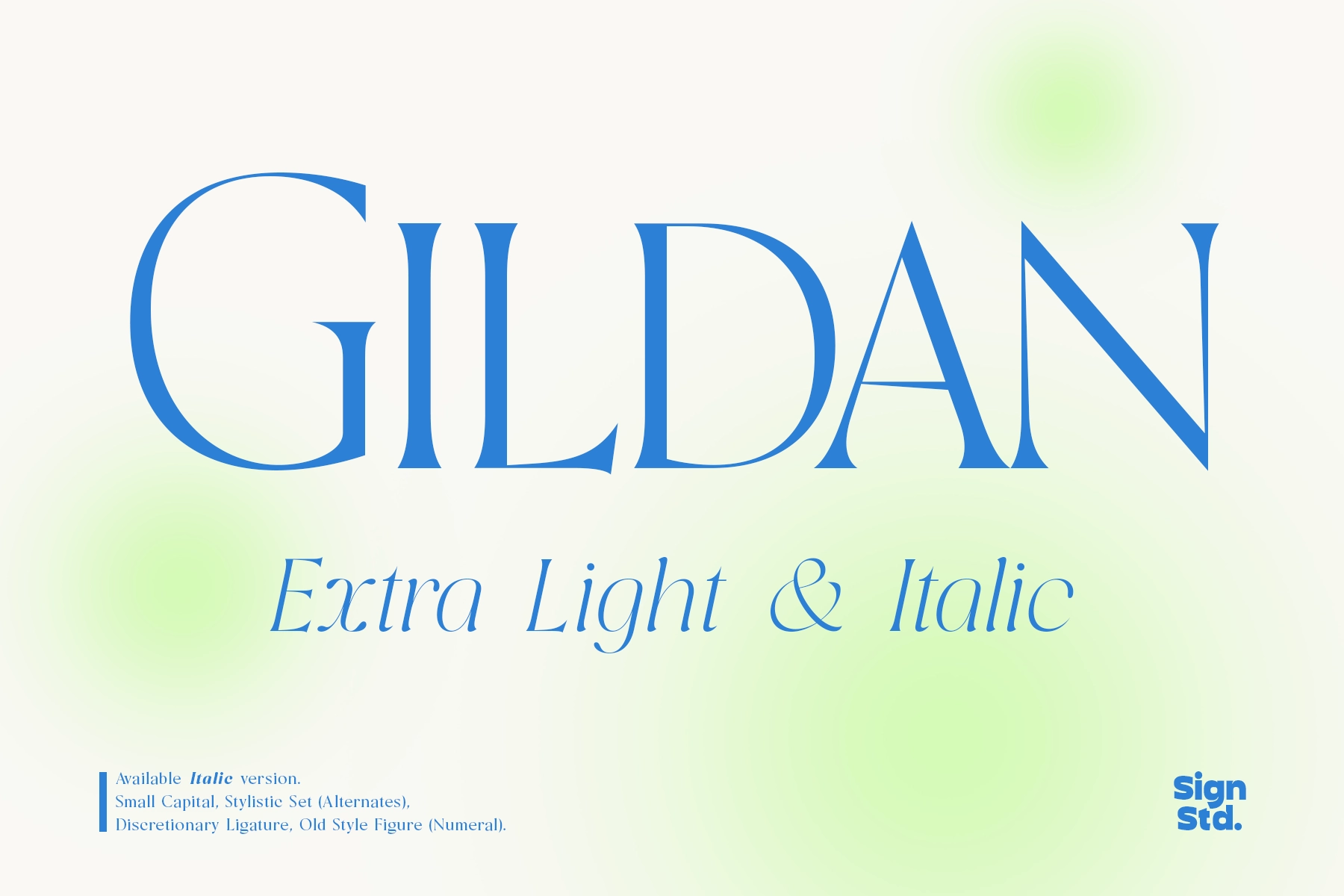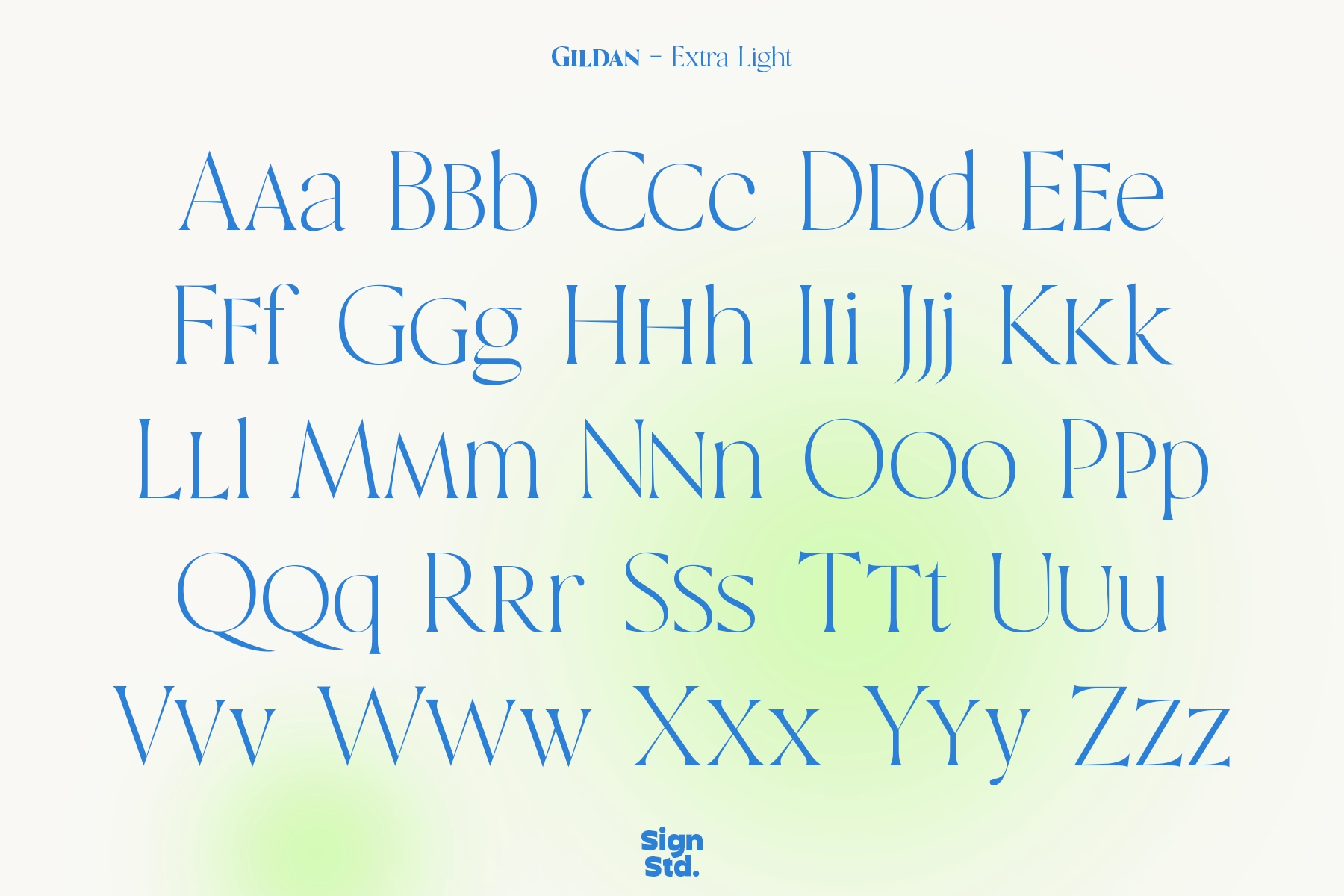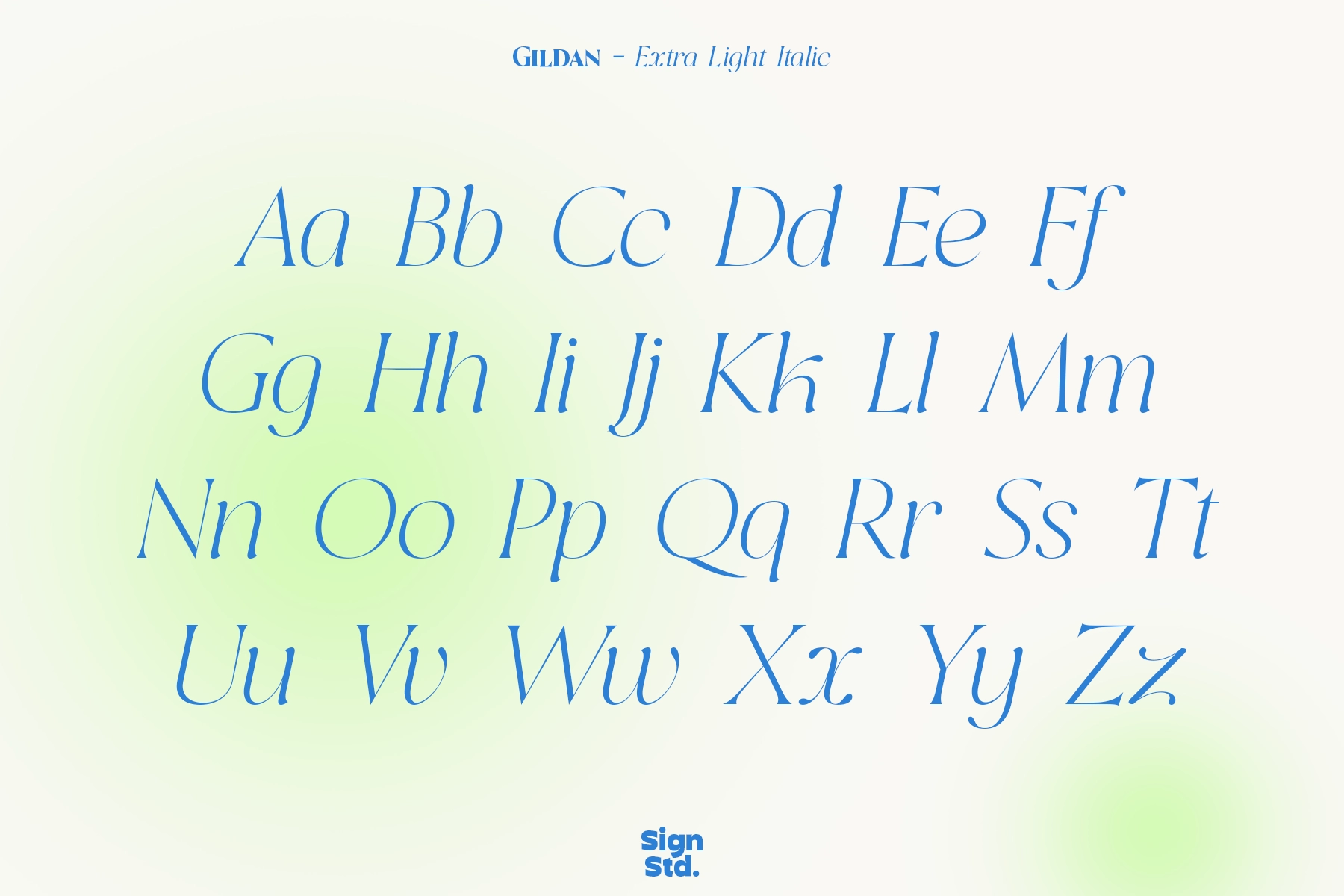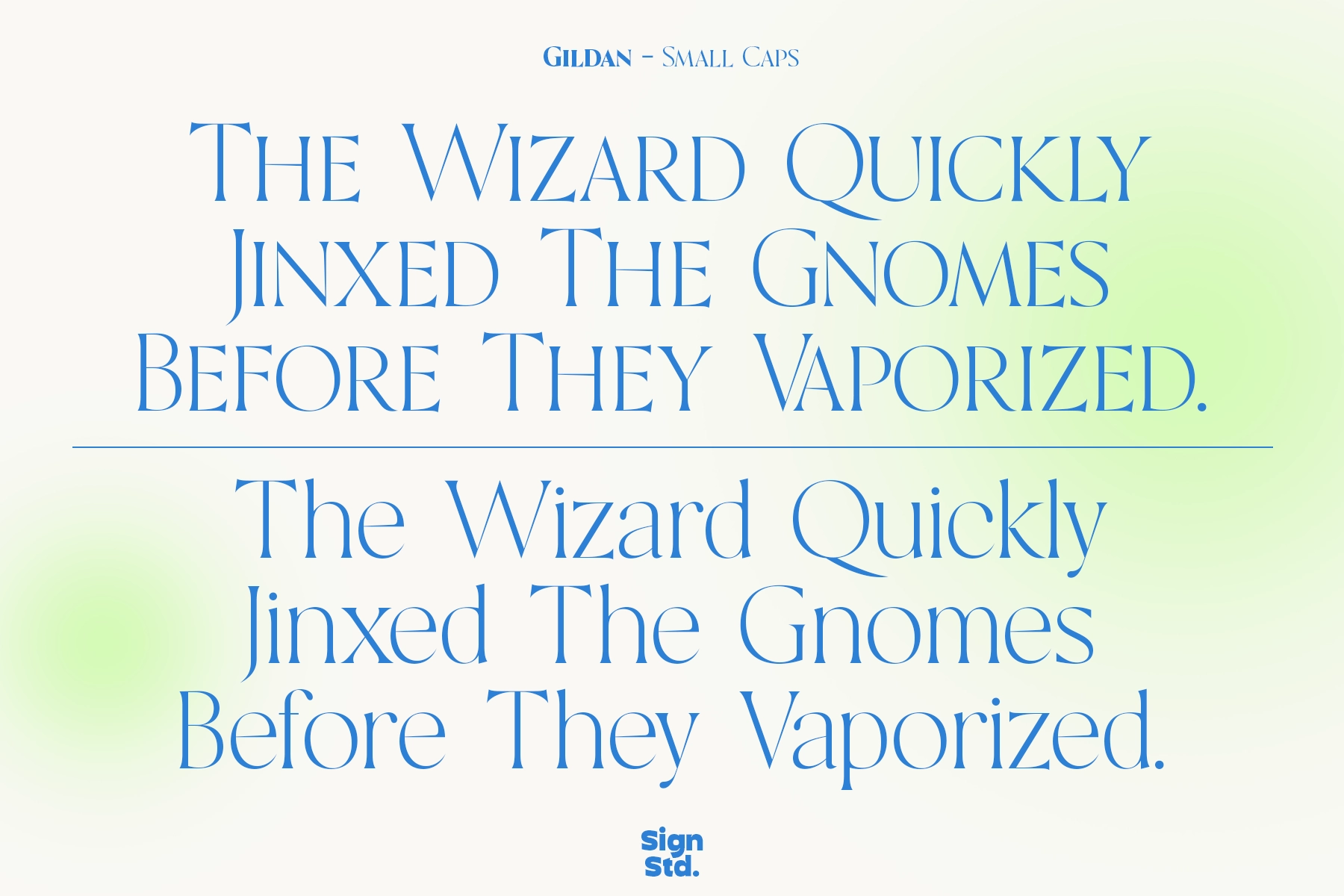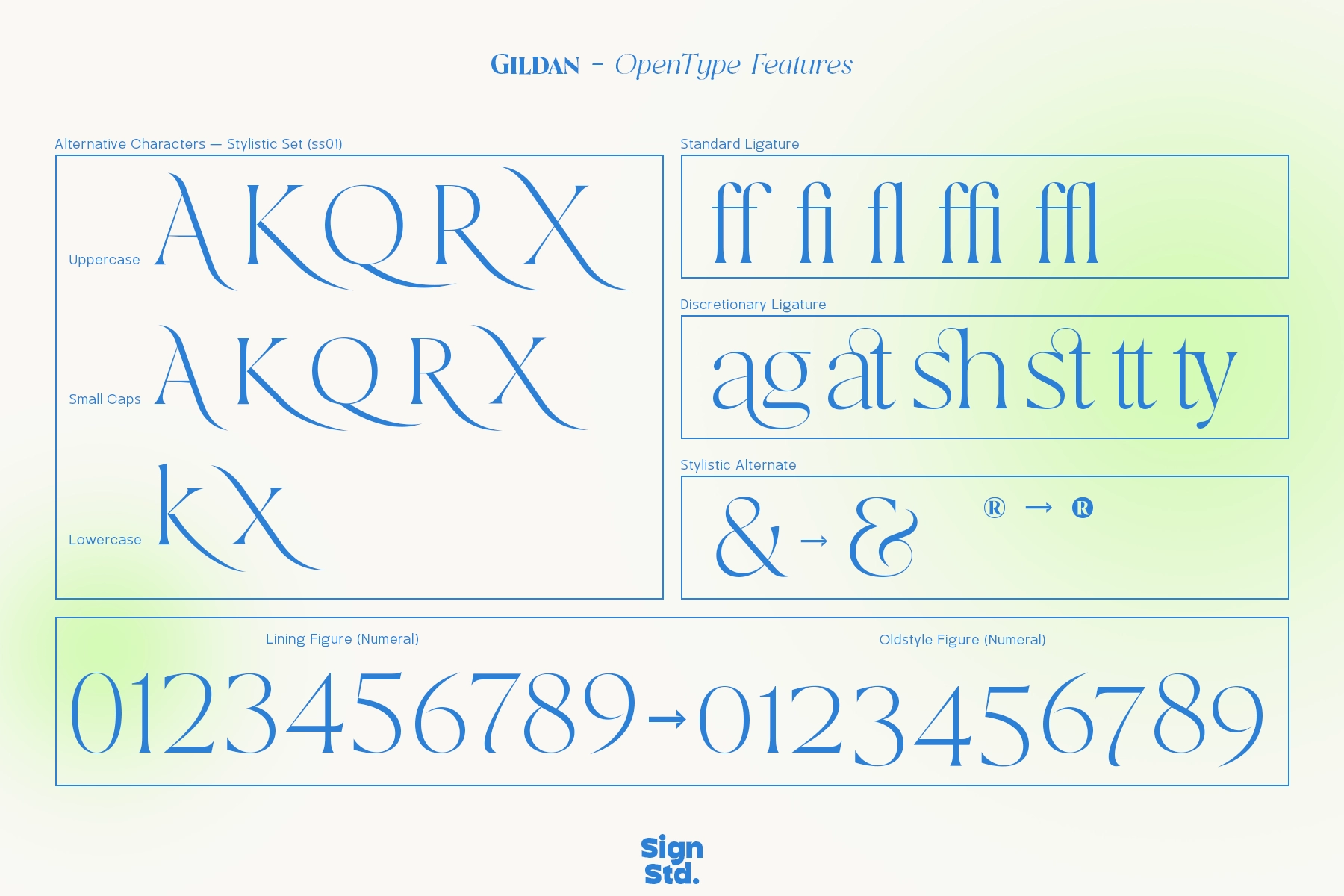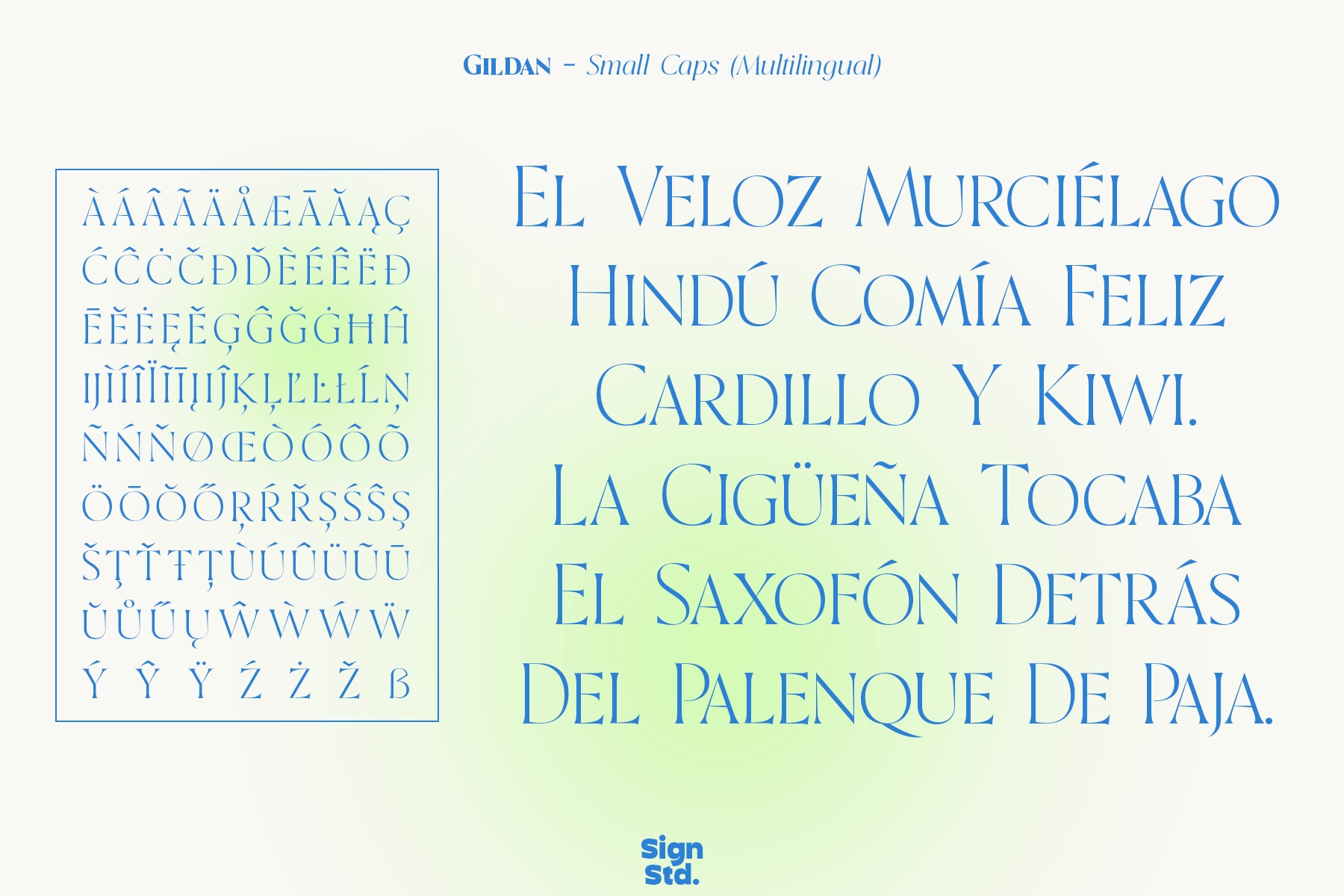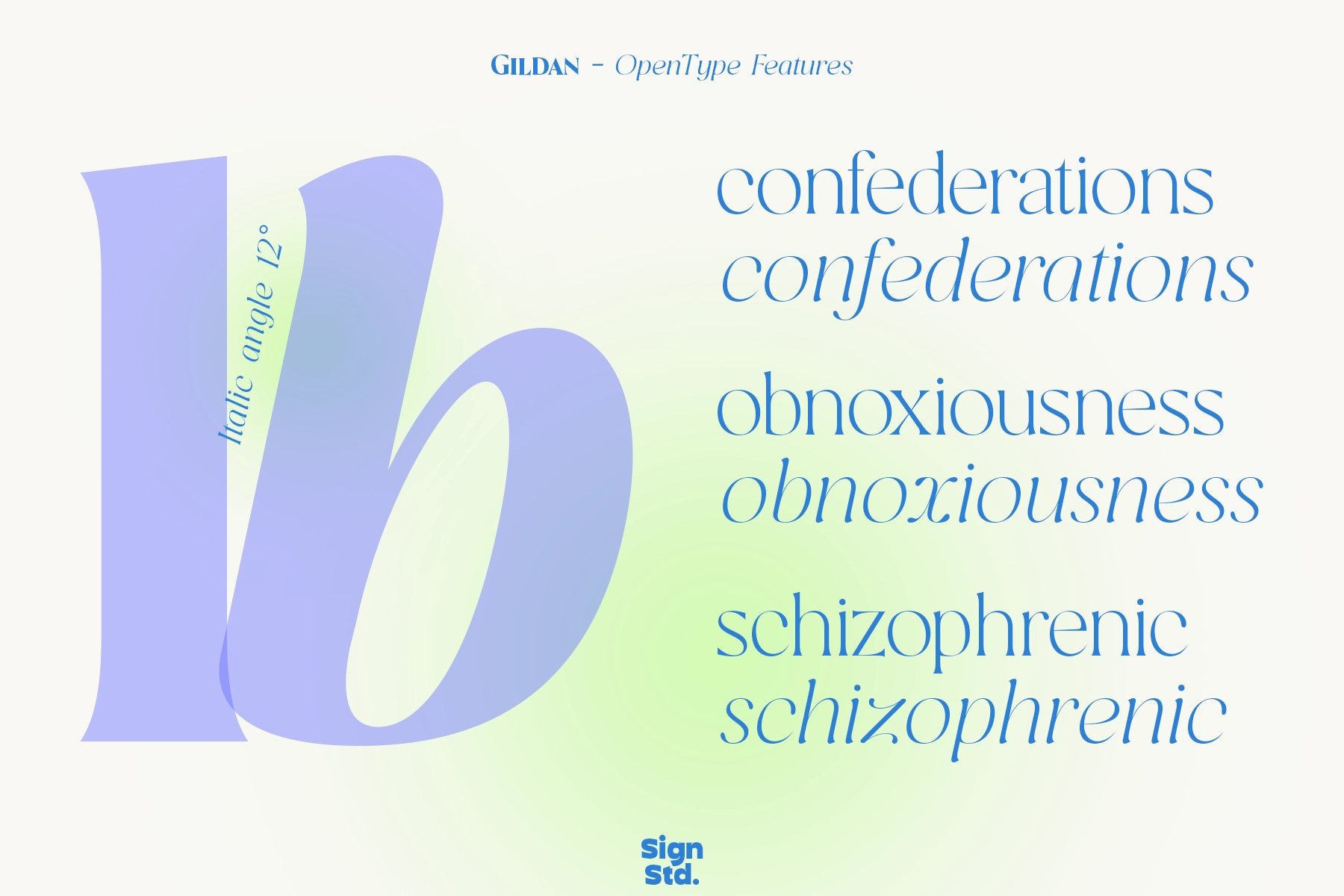
Gildan – Elegant Modern Serif Font
Gildan – Elegant Modern Serif Font is a refined and sophisticated typeface designed to bring elegance and clarity to contemporary design. With its high-contrast strokes and delicate letterforms, Gildan delivers a graceful visual tone that feels both modern and timeless.
The Extra Light weight paired with its italic style creates a smooth, flowing rhythm, perfect for editorial layouts, luxury branding, and fashion-forward projects. Carefully crafted proportions and subtle details allow the font to perform beautifully in both minimal compositions and expressive typography.
- Numerals & Punctuation
- Small Caps
- Discretionary Ligatures